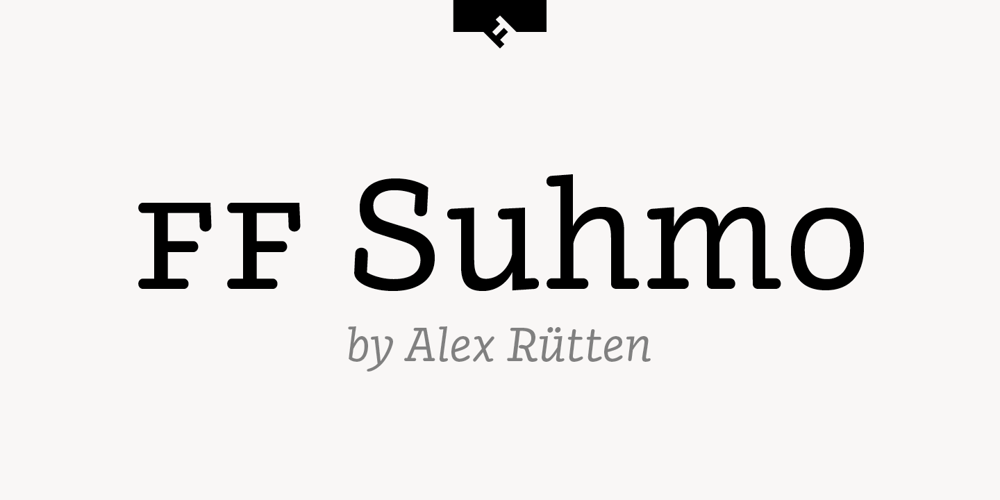
FF Suhmo Font Family was designed by Alex Rütten and published by FontFont. FF Suhmo contains 8 styles and family package options. German type designer Alex Rütten created this serif and slab FontFont in 2010. The family has 8 weights, ranging from Light to Black (including italics) and is ideally suited for advertising and packaging, film and tv, editorial and publishing, logo, branding and creative industries as well as web and screen design. FF Suhmo provides advanced typographical support with features such as ligatures, small capitals, alternate characters, case-sensitive forms, fractions, and super- and subscript characters. It comes with a complete range of figure set options – oldstyle and lining figures, each in tabular and proportional widths. In 2011, FF Suhmo received the TDC2 award.